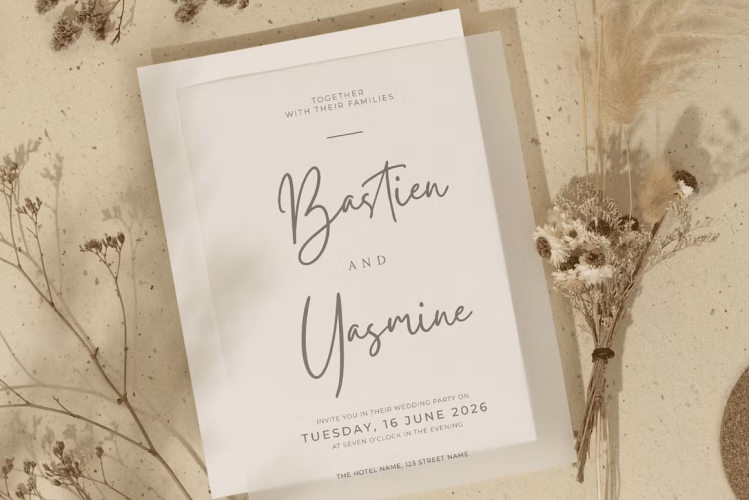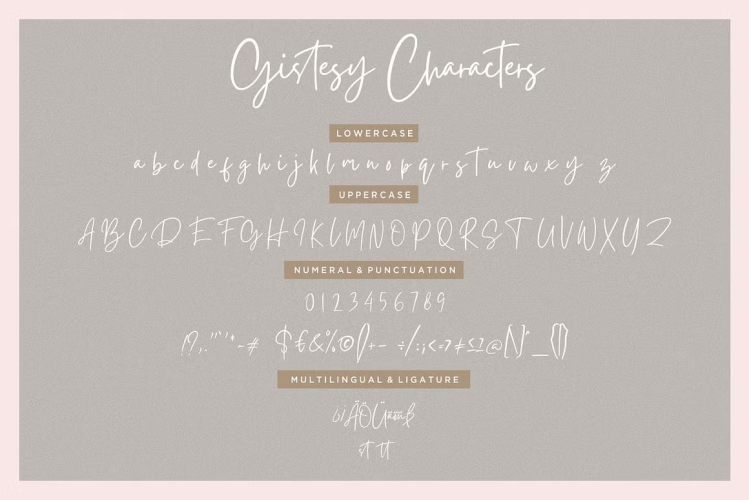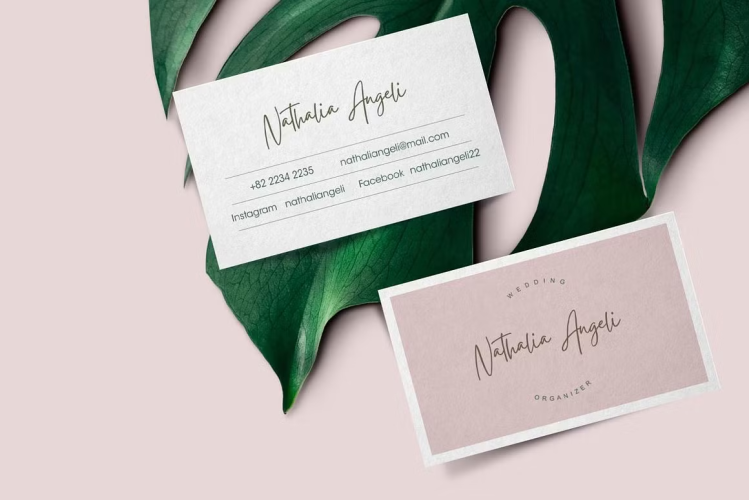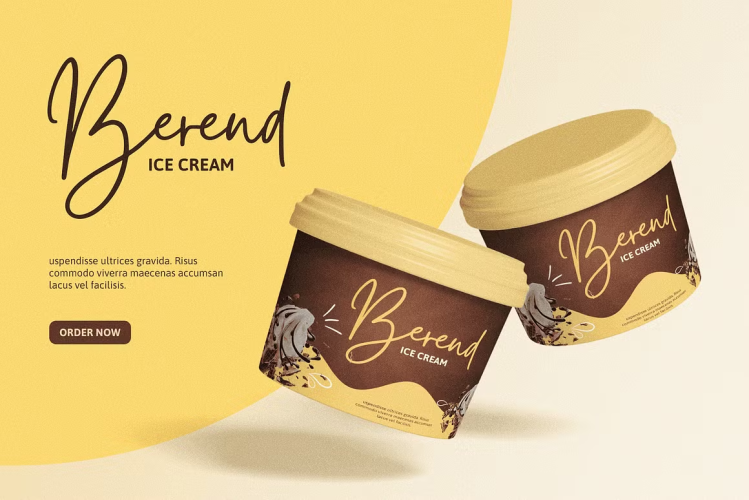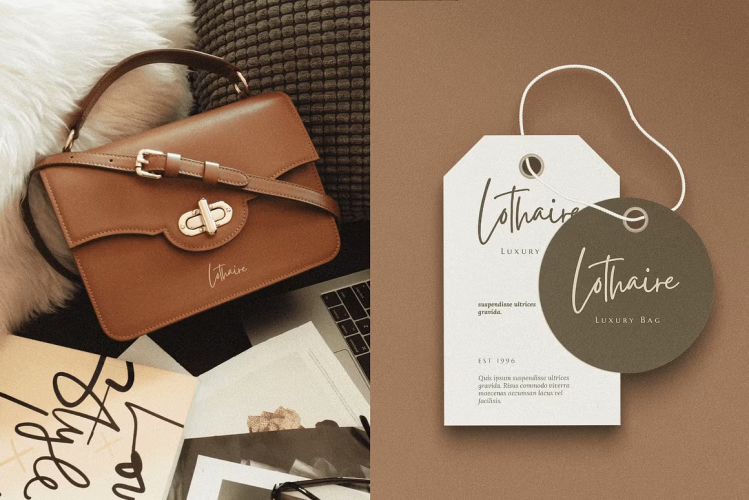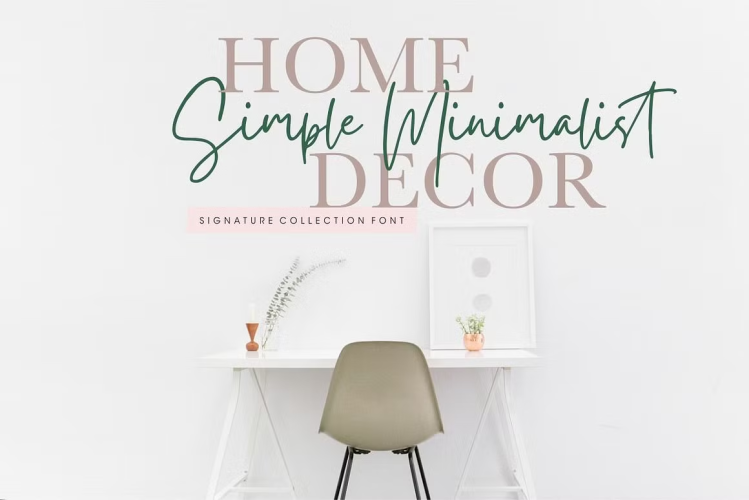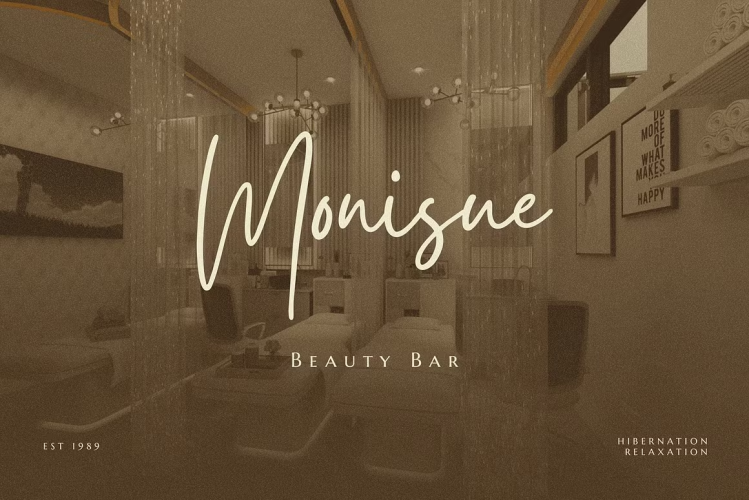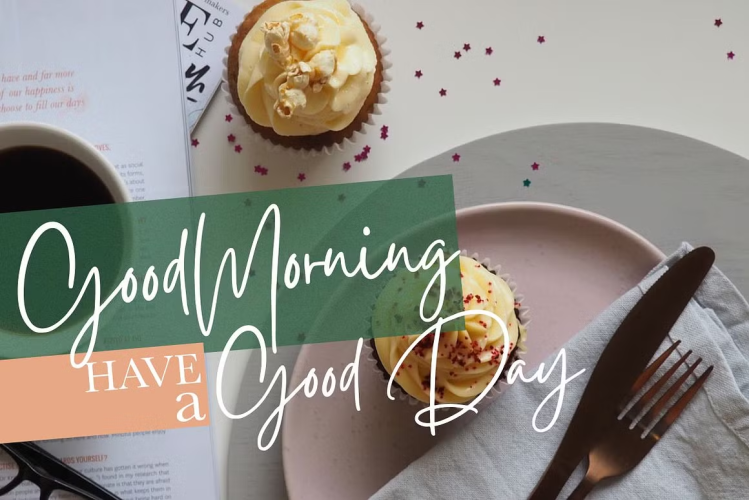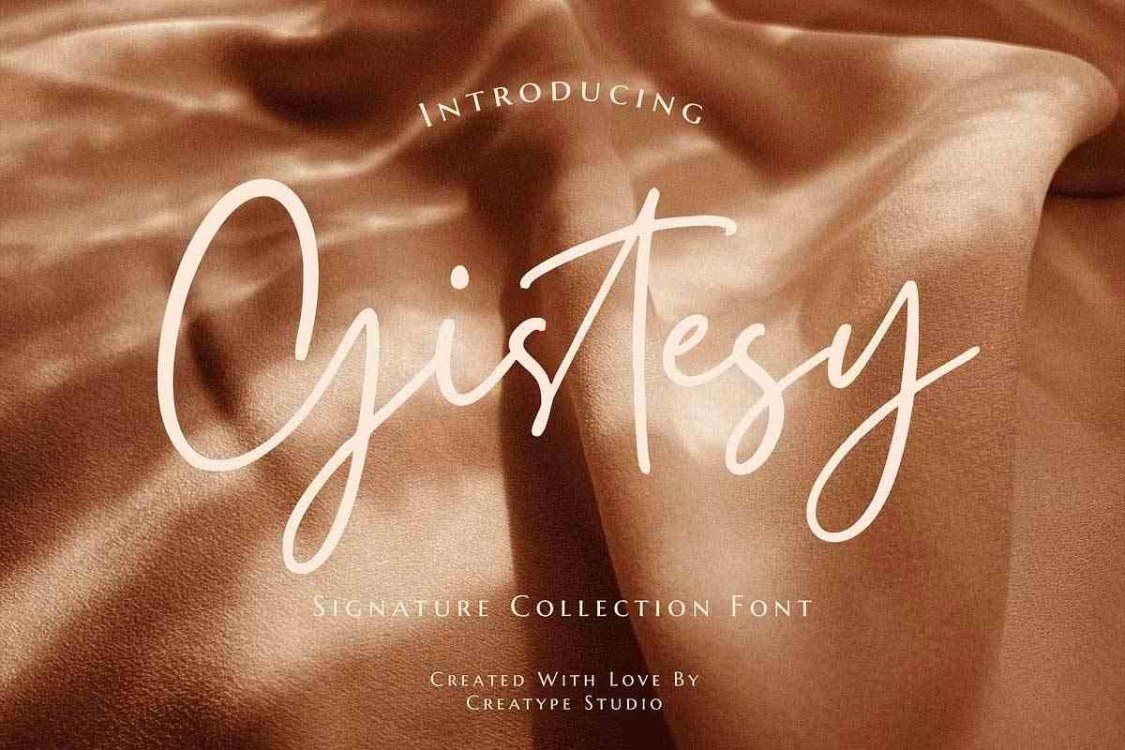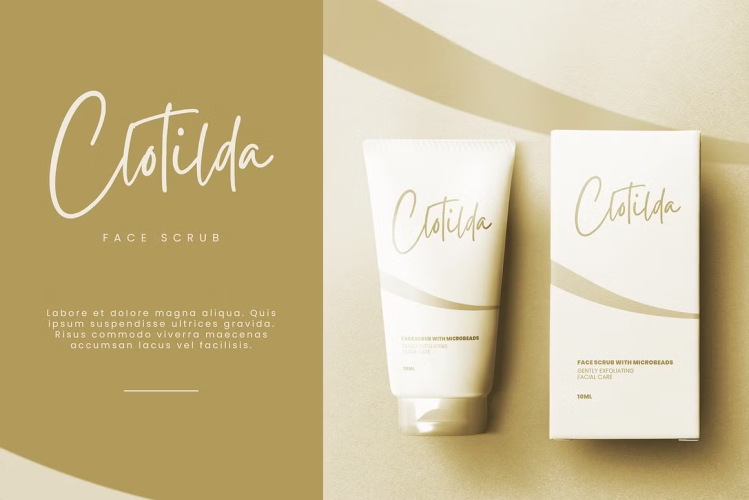
Gistesy Font
Gistesy is a signature collection font with natural movement to make it look elegant, classy, and beautiful for your latest project. Gistesy is perfect for branding projects, logos, wedding designs, social media posts, advertisements, product packaging, product designs, labels, photography, watermarks, invitation, stationery and any projects that need handwriting taste.
Gistesy Font is a Script And Handwritten font that brings a professional and versatile look to your projects. Gistesy  is a signature collection font with natural movement to make it look elegant, classy, and beautiful for your latest project.